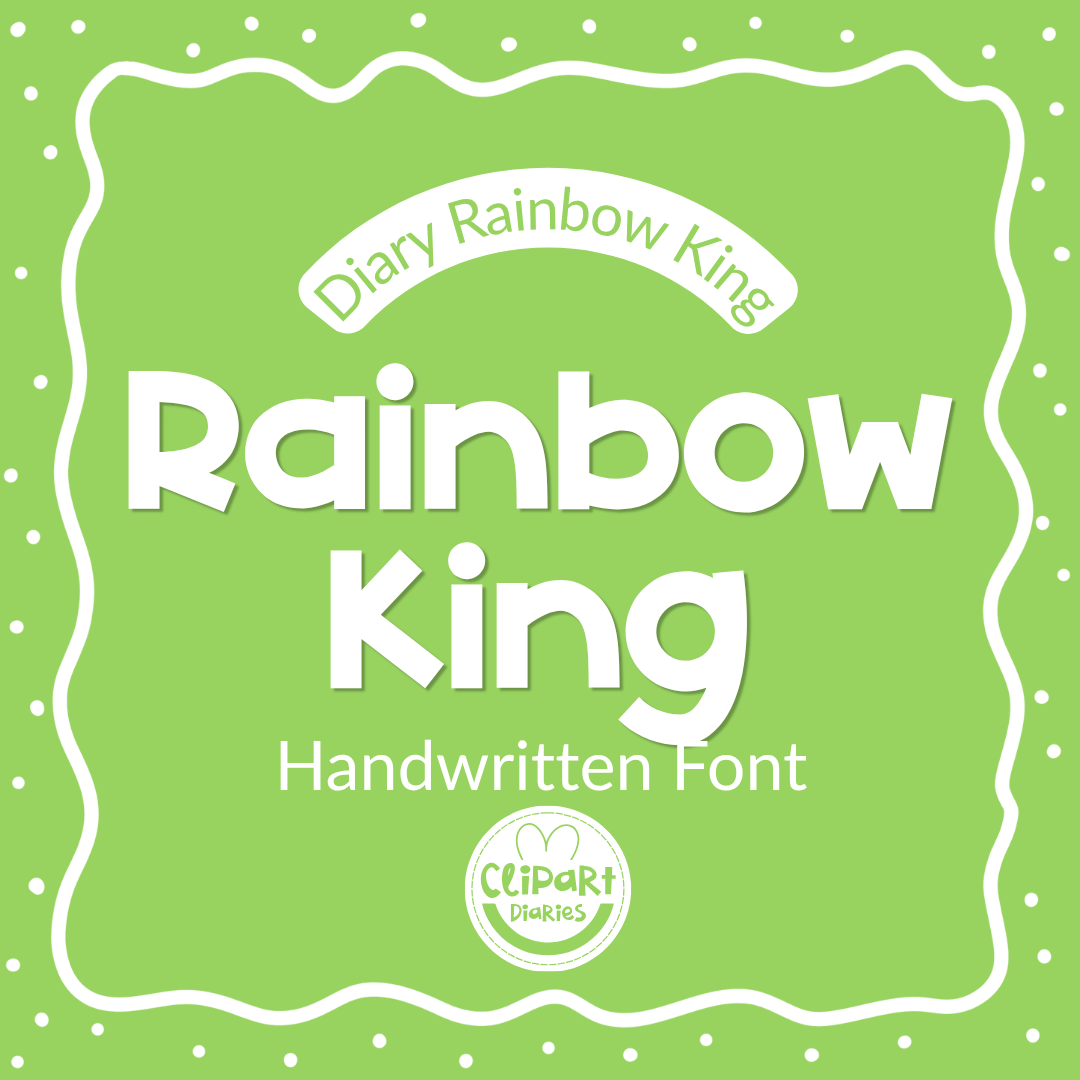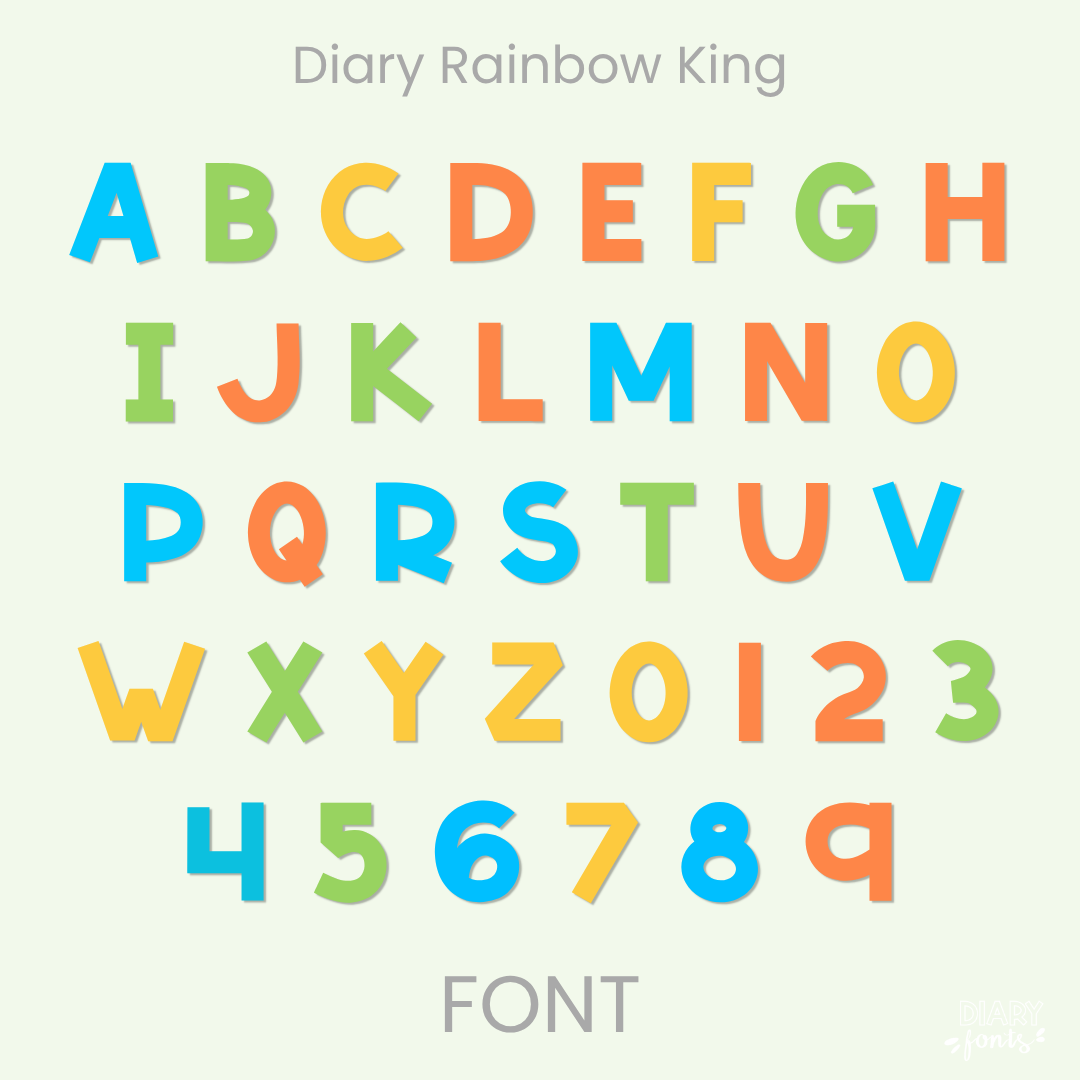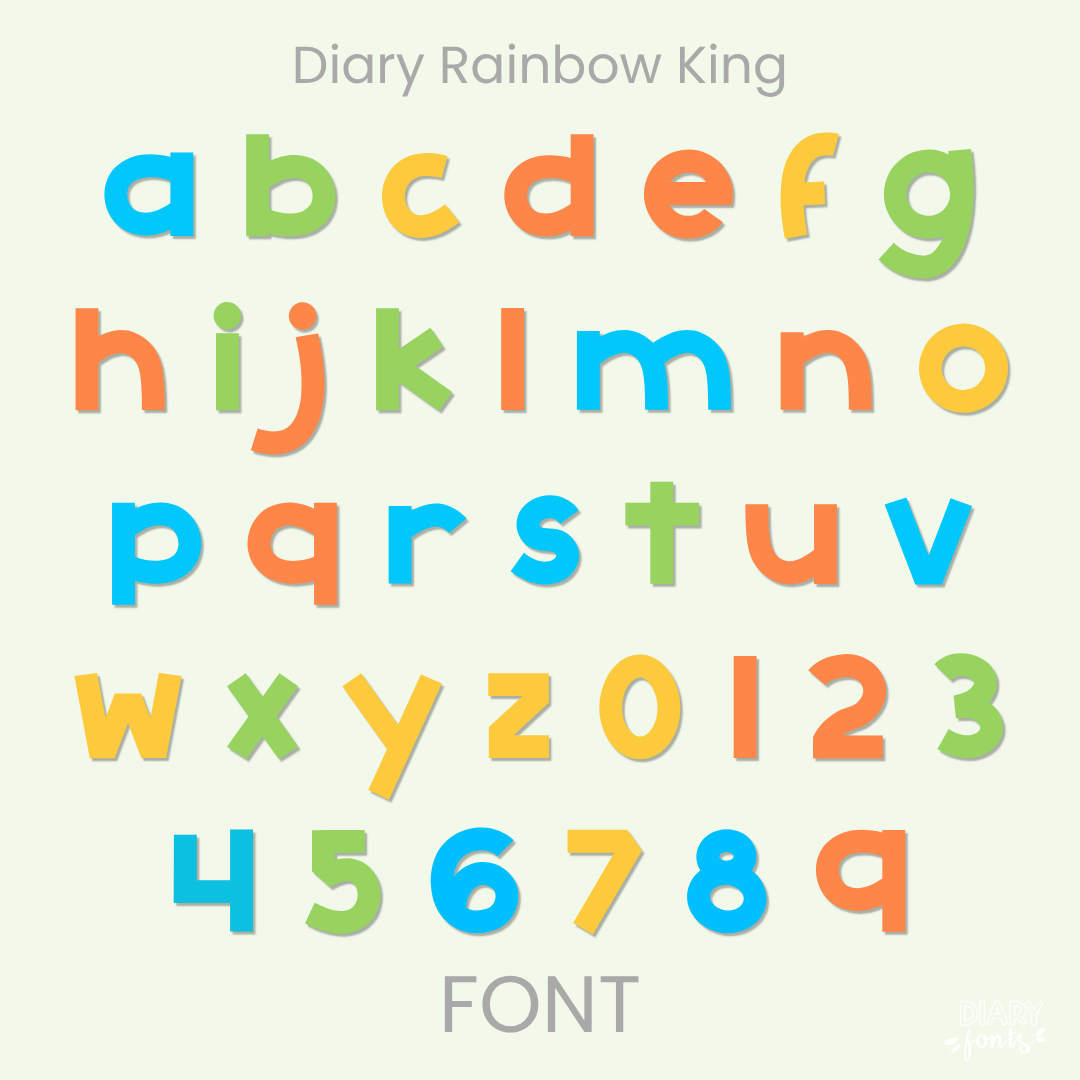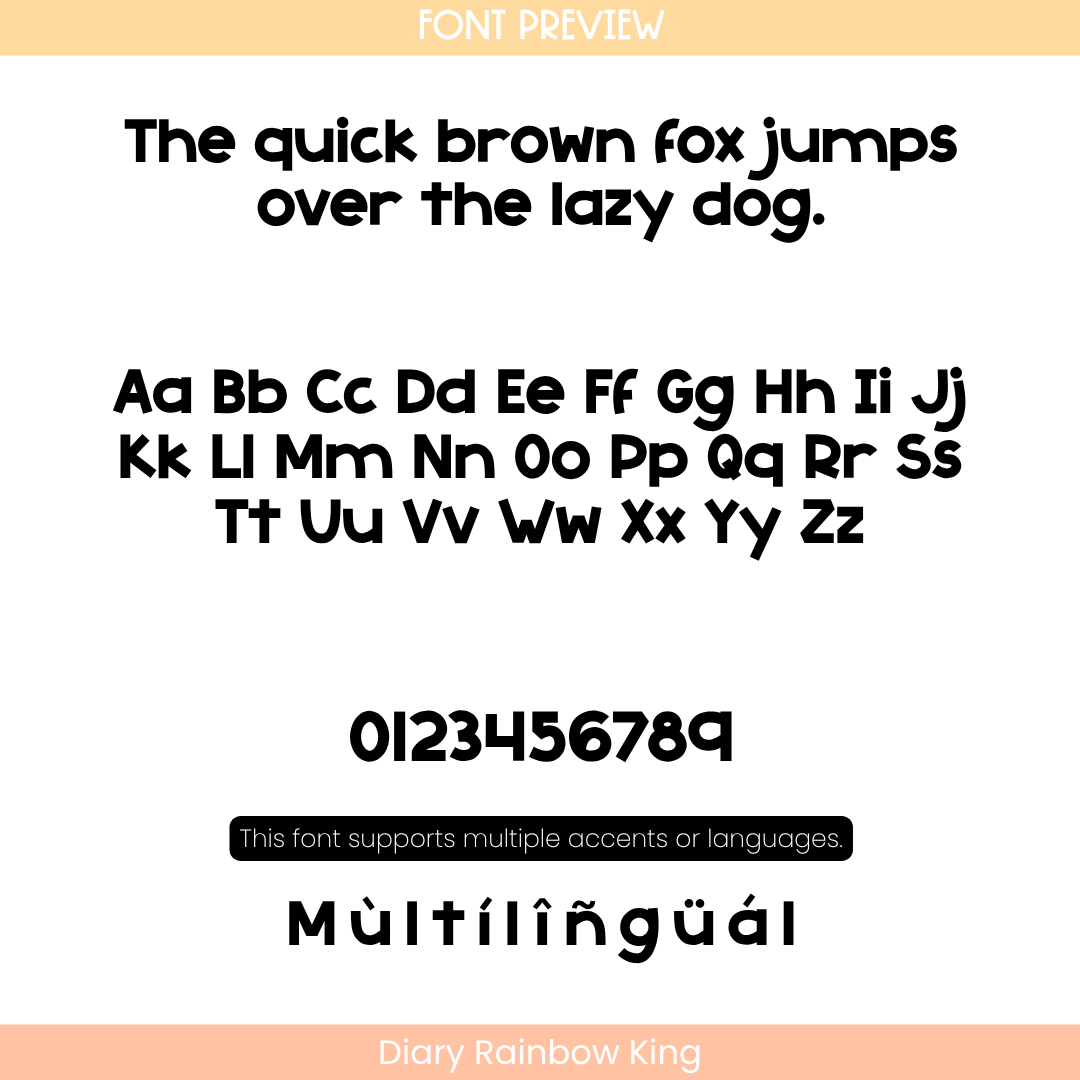
Diary Rainbow King Font
Diary Rainbow King is that bold, chunky, and totally fun handwritten display font you’ve been looking for to make your classroom titles, resource headers, and covers pop!
If you want to grab your students’ attention right away, Diary Rainbow King is your new go-to. It’s got these super thick, weighted lines that make it stand out beautifully, even from the back of the classroom. Instead of a thin pen look, this font brings a heavy, marker-style weight that is still incredibly neat, perfectly upright, and easy for sweet little eyes to read.
It is absolutely perfect for creating eye-catching bulletin boards, bold slide presentation headers, binder covers, and product titles where you really want your text to make a statement. Inside the download, you’ll get a full set of thick uppercase and lowercase letters, solid numbers, and accents for multilingual support. It installs in a snap on your computer to use in Canva, MS Office, or Adobe, and works beautifully on your iPad with GoodNotes and Procreate. Whether you’re prepping daily activities for your own classroom or designing fresh commercial resources for your teacher shop, this bold beauty adds the perfect touch of playful energy to your toolkit.